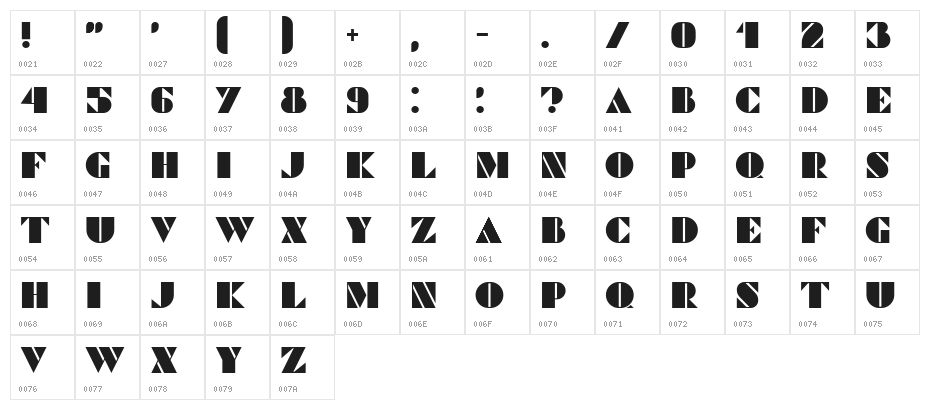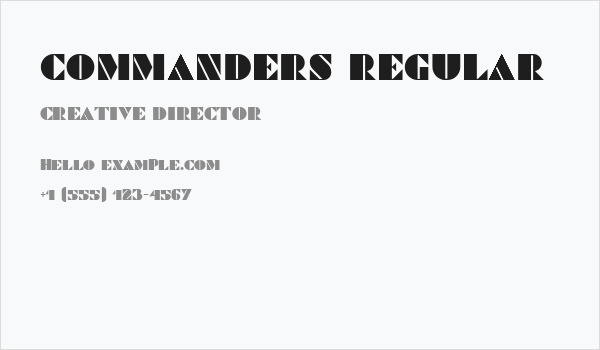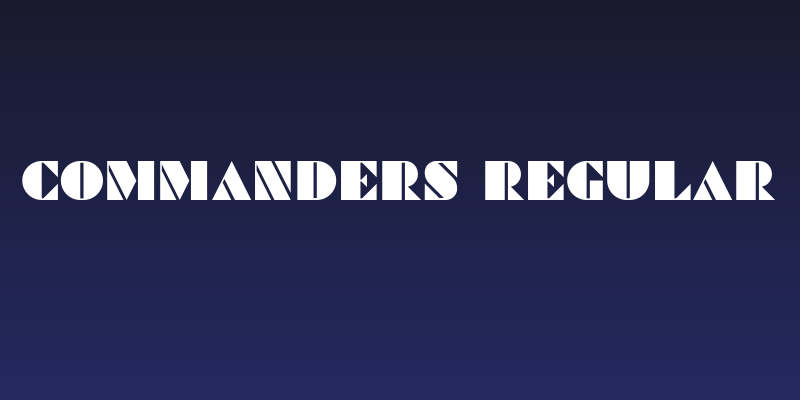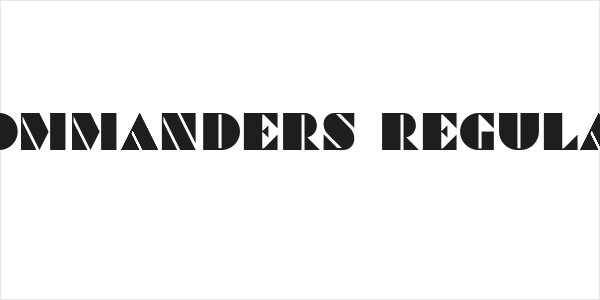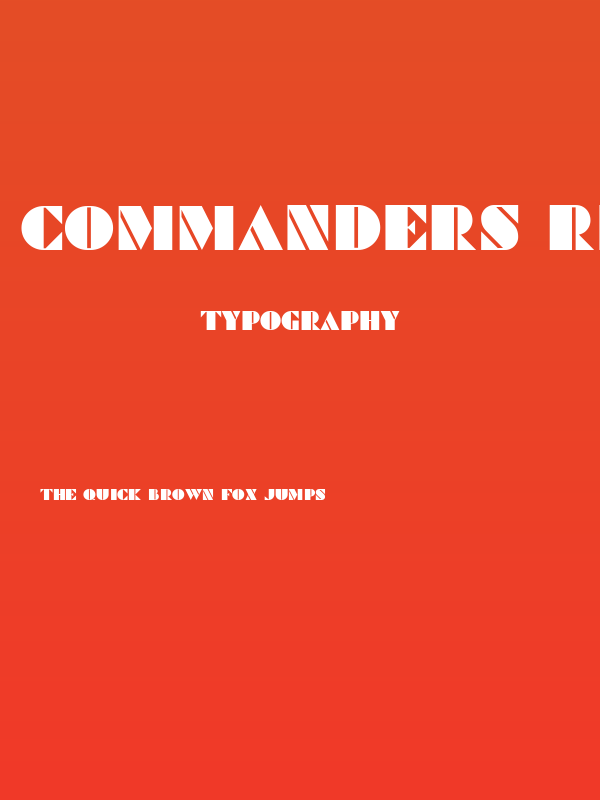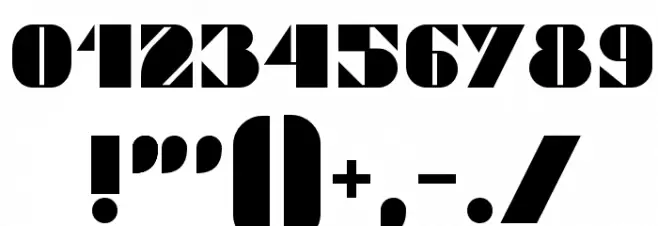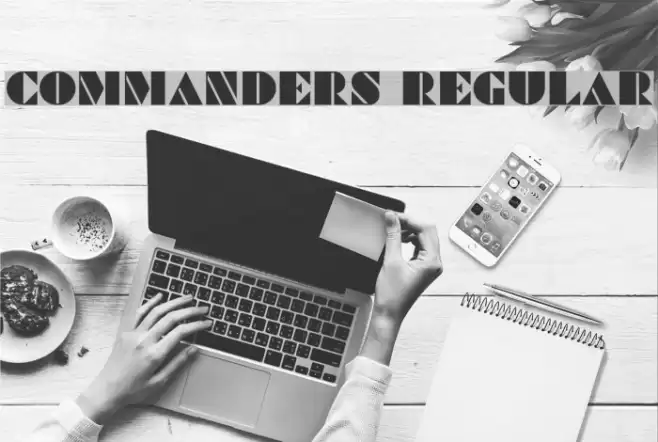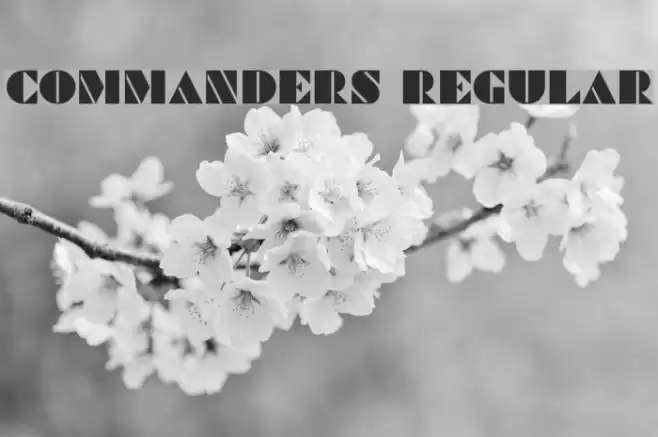
Commanders Regular Font
Commanders Regular Description
This font features a bold, geometric style with strong, angular cuts and a high level of contrast between thick and thin strokes. The uppercase letters are particularly striking, with a distinct, modern aesthetic that commands attention. The numbers and special characters maintain this boldness, ensuring consistency across all glyphs. The overall design is reminiscent of stencil or military-inspired typefaces, making it ideal for impactful and assertive design projects.
| Proposed Projects | Ideal for posters, branding, headlines, and any design requiring a strong, impactful presence. |